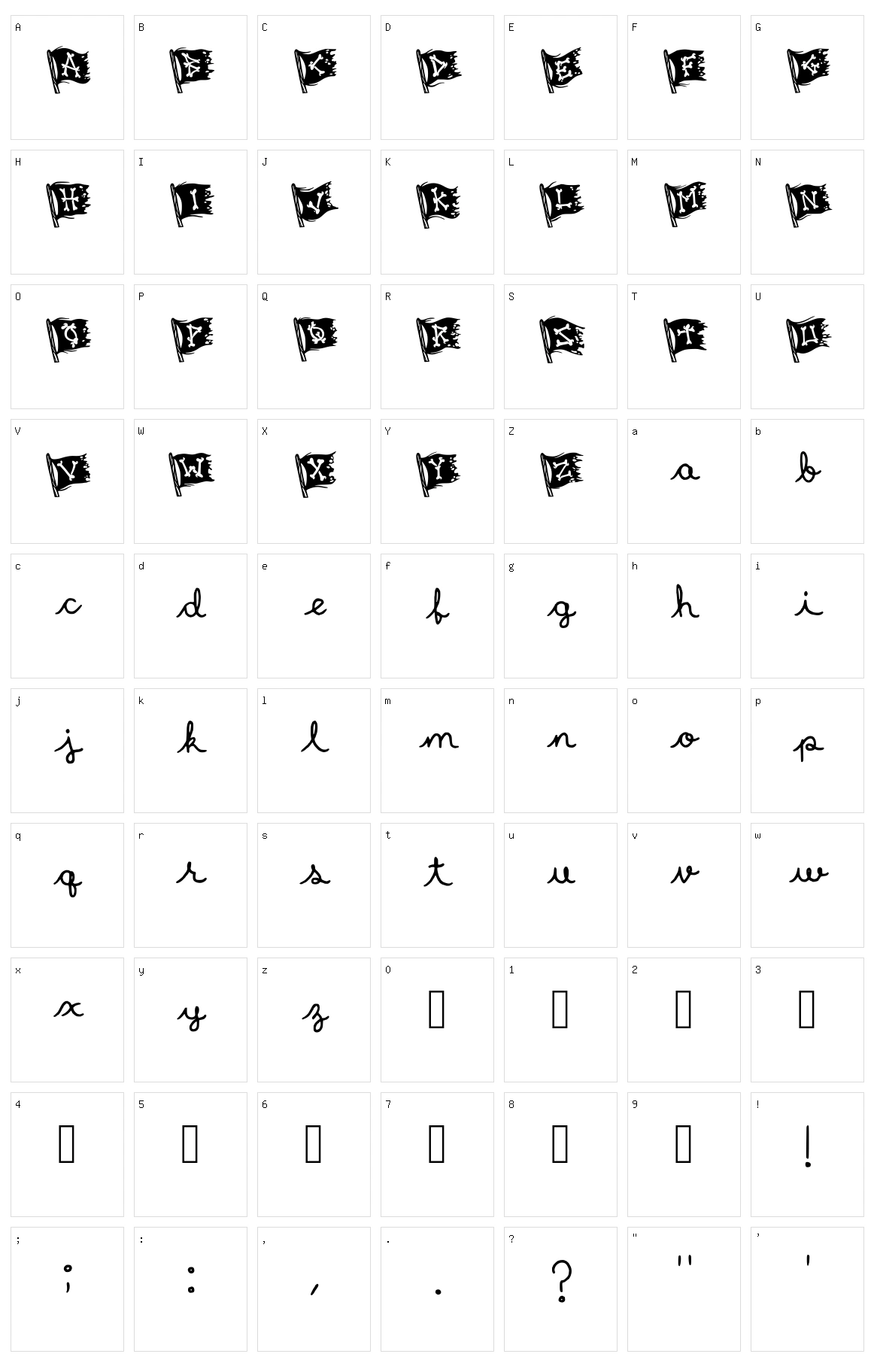
The free font Hoist The Colors is carefully designed by Dug McUgly, showcasing a thoughtful balance of creativity and usability and falls under the Halloween font style. When you download the ZIP file, it contains only 27.05 KB of font files, making it lightweight and quick to download. Please review the license details below to understand permitted usage and distribution rights. If license information is not available, we recommend using this font for personal projects only or contacting the author directly for commercial usage permissions.